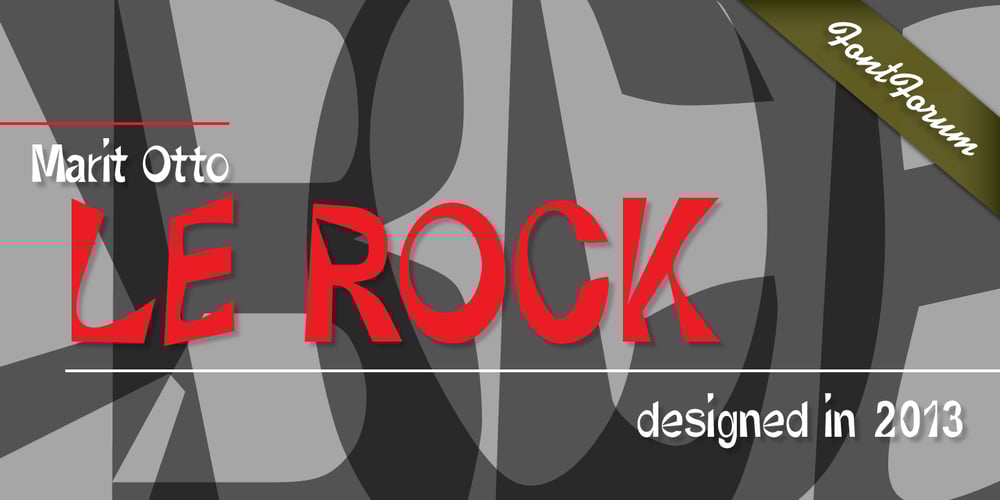
Le Rock Font Family was designed by Marit Angenita Otto and published by URW Type Foundry. Le Rock contains 1 styles and family package options. Le rock is the newborn sister of my first typeface Jazmo and a relative of my music-inspired font family. Le Rock seems to wiggle and jiggle a little as if it invites you to dance. This is caused by the gaps in the individual characters. The typeface can also be seen as eroded, carved and sculpted by mother nature. But besides, the design of Le Rock can also be associated with the characteristics of stones: Solid and since ever, here, there and everywhere. To walk on, lean against, to be surrounded by, to build with and to shelter in. It cannot be denied, that there are also some comic art influences. The font is outspoken enough to be used in any form of graphic design, like poster and flyers, but at the same time it remains readable enough for longer texts.